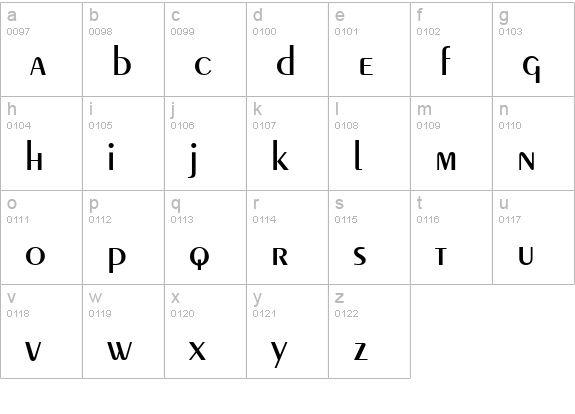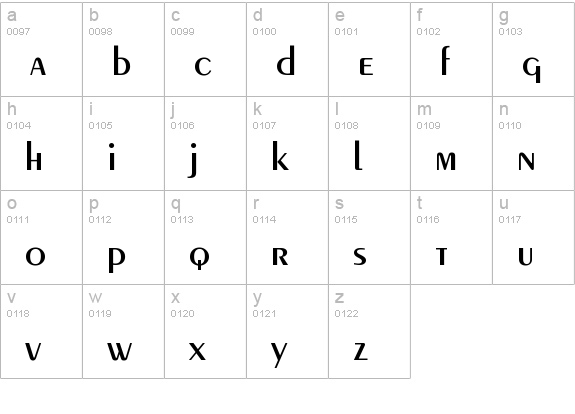
Peoria-Regular is the standard, neutral variant in the Peoria typeface family \xE2\x80\x94 well suited to general body text, paragraphs, and standard typographic work.
Peoria-Regular is a versatile and modern font that is perfect for a wide range of design projects. With its clean lines and balanced proportions, this font exudes a sense of elegance and sophistication. Whether you are creating a logo, poster, or website, Peoria-Regular will elevate your design to the next level. One of the best things about Peoria-Regular is that it is available for free download at FontsMarket.com. This means that you can easily access this high-quality font without breaking the bank. Don't miss out on the opportunity to enhance your projects with the timeless beauty of Peoria-Regular. Download it today and unleash your creativity!